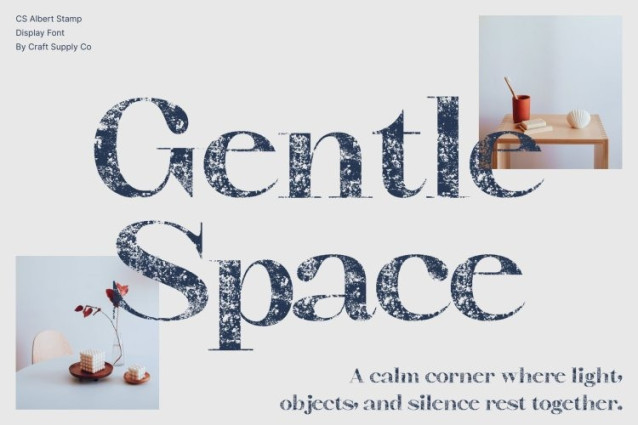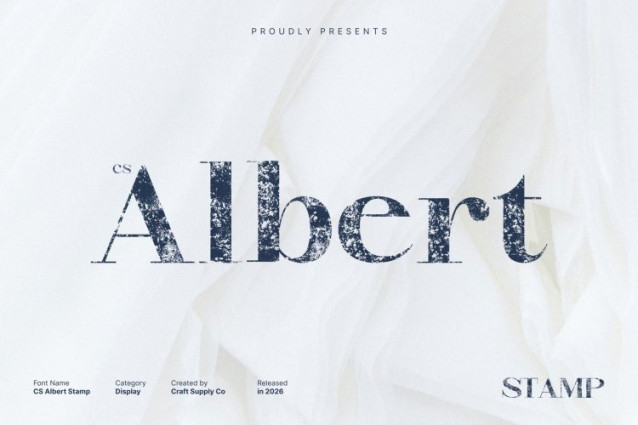
CS Albert Stamp Font
CS Albert Stamp Font This is a classic serif typeface inspired by the elegance of Didone typography, defined by its strong contrast between thick and thin strokes. Its refined construction and vertical emphasis create a graceful, high-end appearance that feels formal, poised, and visually striking. The addition of a subtle stamp effect introduces depth while preserving its classic sophistication.
High Contrast with Textured Luxury
The pronounced stroke contrast enhances the font’s luxurious character, drawing attention to its elegant rhythm and sharp precision. The stamped texture adds an organic, vintage nuance, softening the perfection of the Didone form and giving the typeface an expressive, tactile quality without compromising its refined appeal.
Slim Serifs with Timeless Precision
Featuring slim serifs and clean vertical lines, this font radiates grace and precision. The textured finish brings a sense of heritage and authenticity, making the font feel both stately and artistic. This balance ensures timeless sophistication across both traditional and modern luxury designs.
Ideal for Formal and Premium Applications
Perfect for formal invitations, editorial layouts, luxury branding, packaging, and high-end visual identities, this font delivers elegance with character. Its classic Didone foundation combined with stamped texture makes it an excellent choice for designers seeking a serif font that communicates exclusivity, refinement, and lasting beauty.